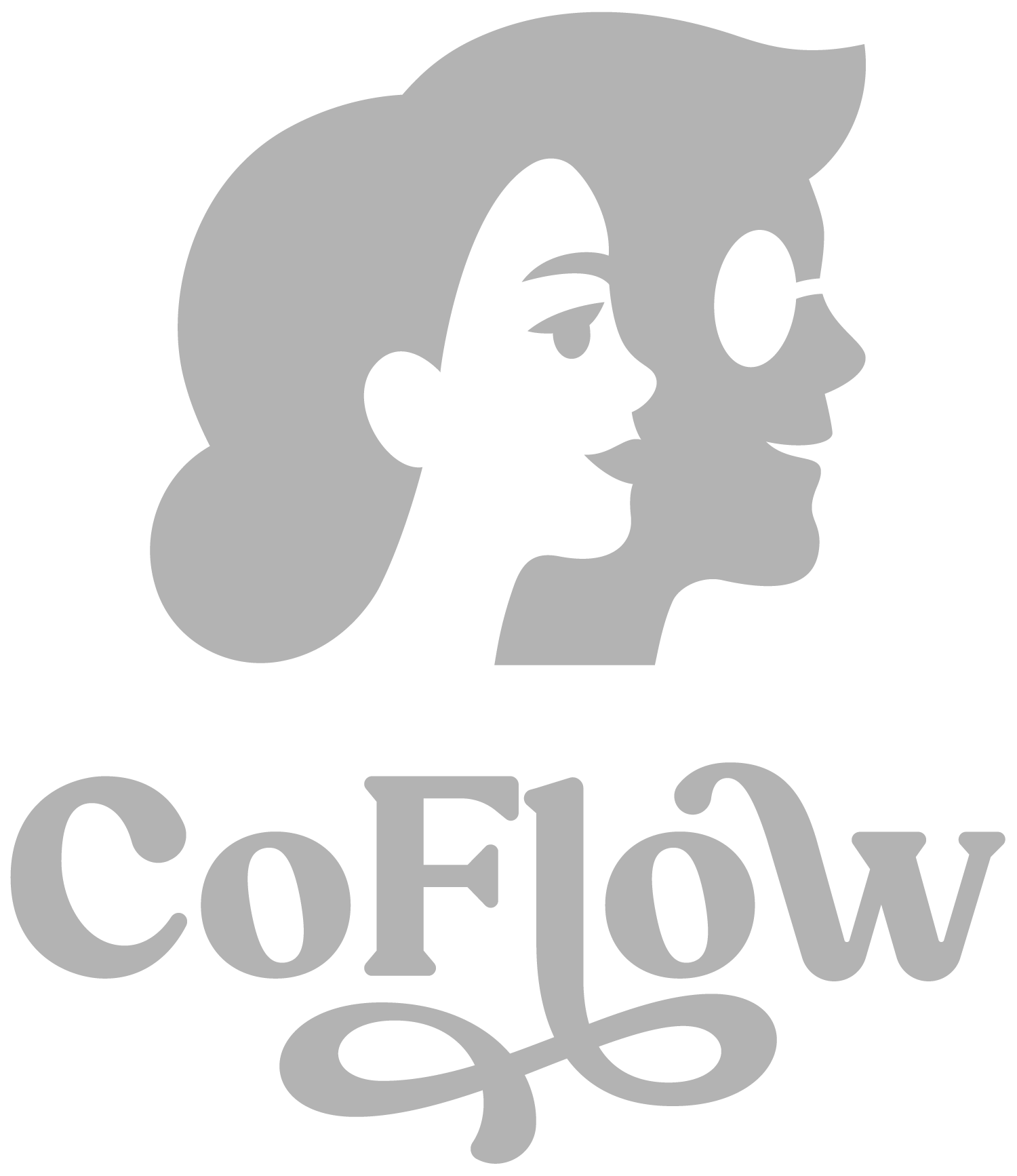
Logo featuring a woman's profile with glasses and a man's profile, with the text 'CoFlow' below.
CoFlow
CoFlow is a neighborhood-based co-working space in Richmond, VA.
I literally jumped at the opportunity to work on this project. Richmond, VA is quite honestly my second home. I spent my college years and started The Routine Creative while living in Richmond.
So, one could say that this was a bit of a passion project; designing a brand that felt diverse and approachable for the artsy and eccentric city of Richmond.
Six round tokens arranged in two rows, with logos and text in blue, white, and orange colors, casting shadows on a beige background.
Poster with the logo of CoFlow, a stylized illustration of a woman and man's heads, and a photo of two women working together on laptops. The poster has the text 'Work better together' and the website 'coflowrva.com'.
A white tote bag with an orange logo featuring illustrated side profiles of a woman and a man, with the word "CoFlow" written below.
Flowy mascots to represent the Church Hill community, coworking & CoFlow.
Logo with a stylized illustration of a woman's face in profile, wearing round glasses, with the word 'CoFlow' underneath."
Playful Serif with rounded edges and unique flourishes gives it that warm and welcoming “coffee shop vibe” while remaining professional.
Three people working on laptops and tablets at a long table in a cozy cafe with a large calendar on the wall behind them.
A brown mug hanging from a knotted rope with the message "We work better together" written in white letters.
Collage of promotional images for CoFlow coworking community. Top left: 'Where We Work It' in blue on dark background. Top right: 'We Work Better Together' in brown on beige background. Bottom left: 'Work Better Together' with '@COFLOW.CO' in blue on light background. Center: gray sweatshirt with 'CoFlow' logo, and below a screenshot of the CoFlow website showing a coworking space interior with people working.